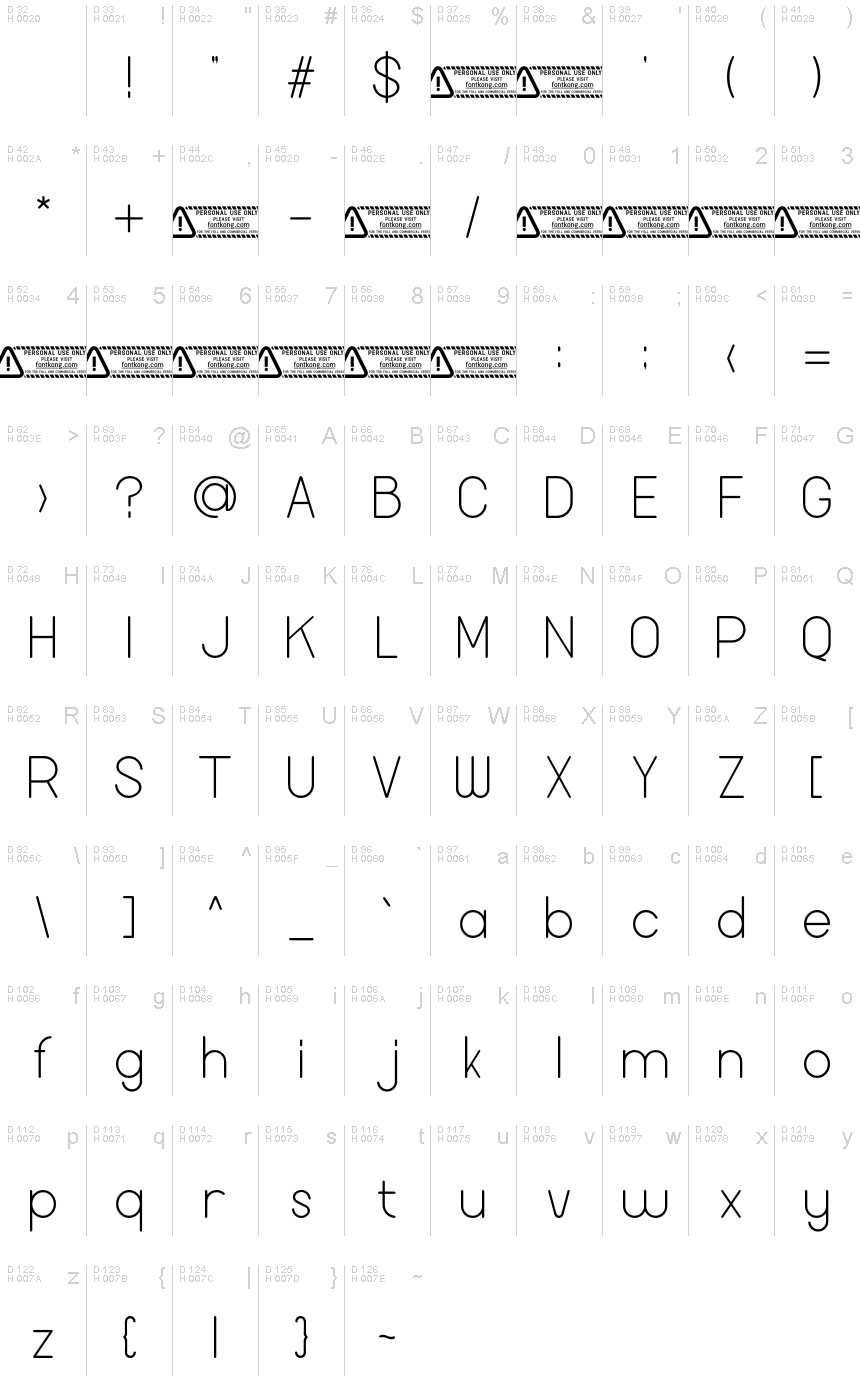
Monnoline
Monnoline font by Kong Font is a simple light geometric sans serif typeface with a sharp design. Seemingly technical, it is compiled of clean lines and minimalistic shapes for the most flawless yet eye-catching presentation imaginable. It may be trained to imitate specific historic typefaces but feels more legible and less contrived than its predecessors.